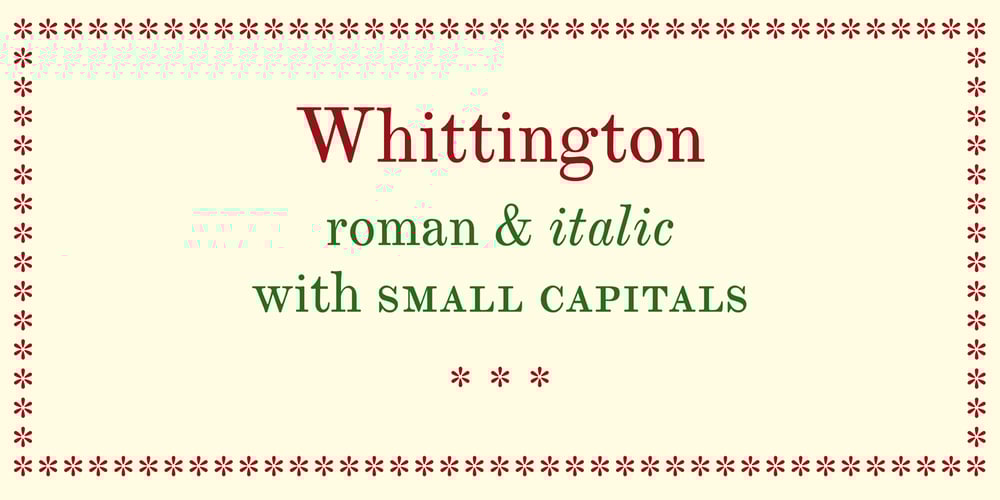
Whittington Font Family was designed by George Tulloch and published by George Tulloch. Whittington contains 2 styles and family package options. Whittington is a revival of a congenial ‘modern’ typeface of the mid nineteenth century, unassuming and businesslike with an even colour that reads comfortably over long stretches. It is intended primarily for use in running text. Whittington provides wide support for west, central, and east European languages that use the roman alphabet. Among its OpenType features are ligatures, small caps, several sets of numerals, contextual alternates, intelligent implementation of long ‘s’, and fractions. For more detail, please see the pdf available in the Gallery.